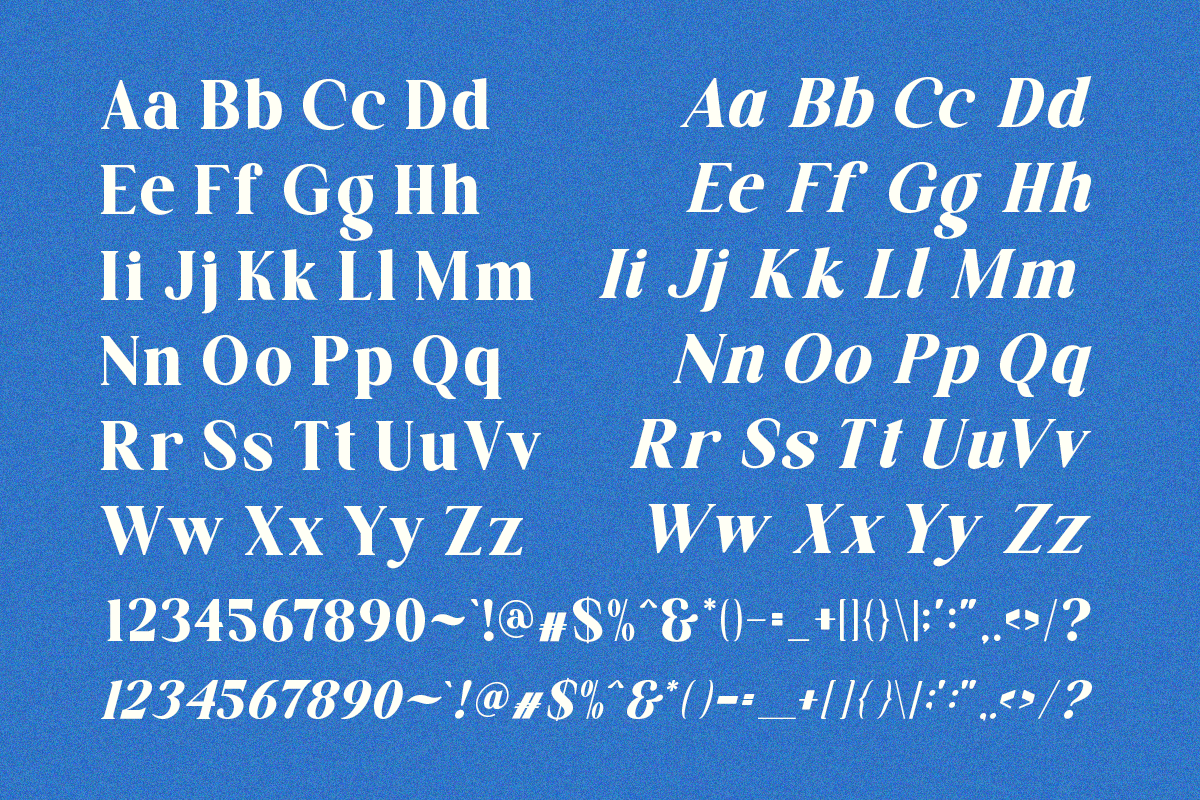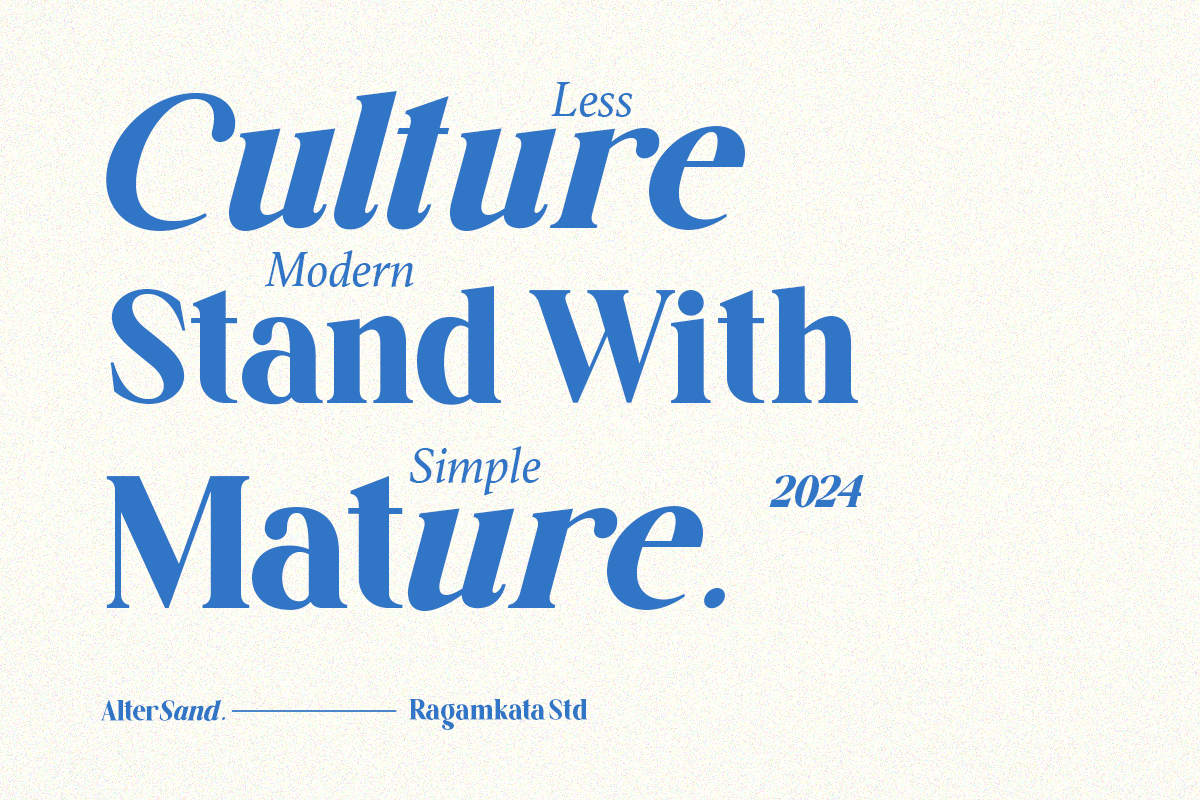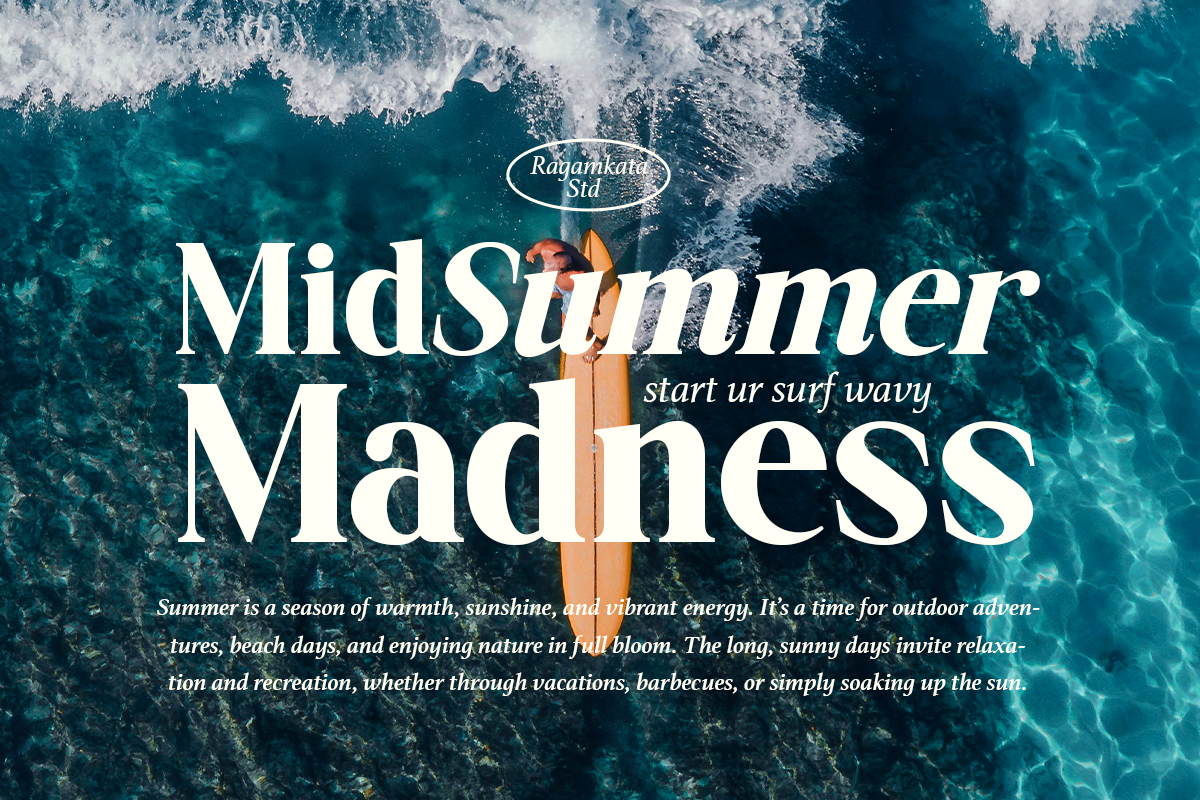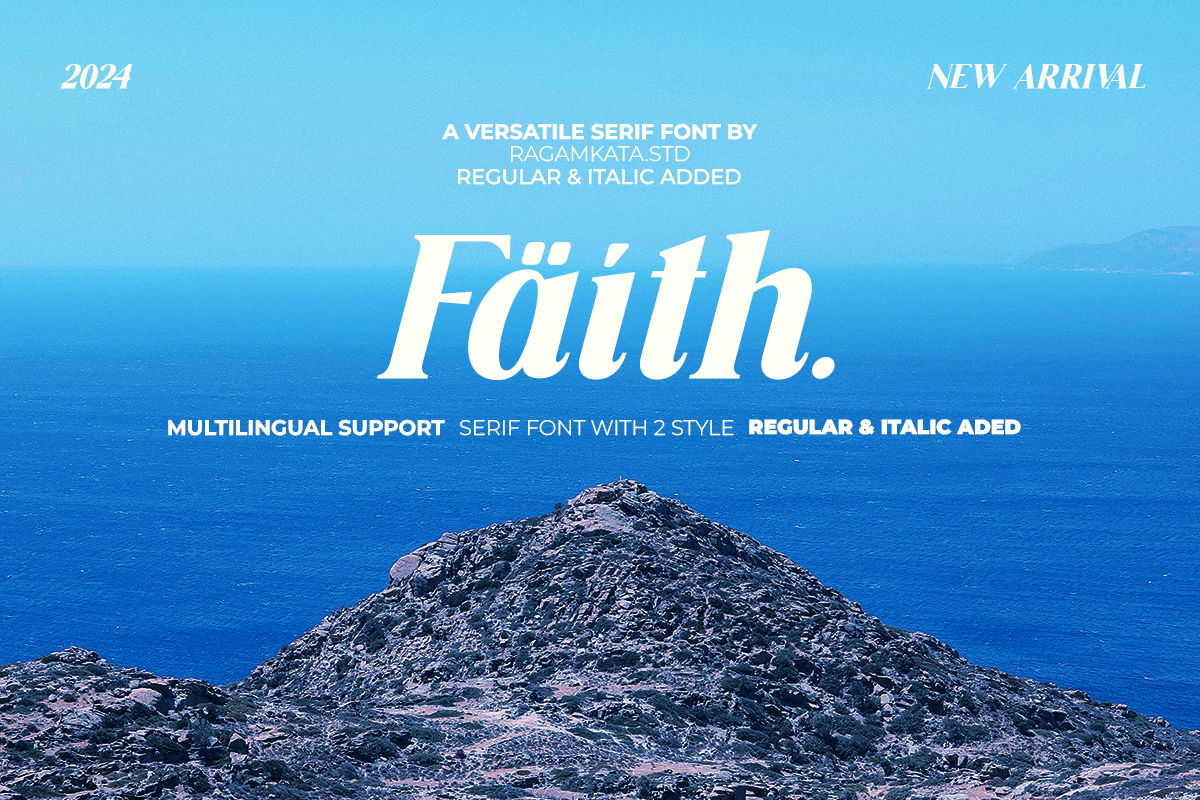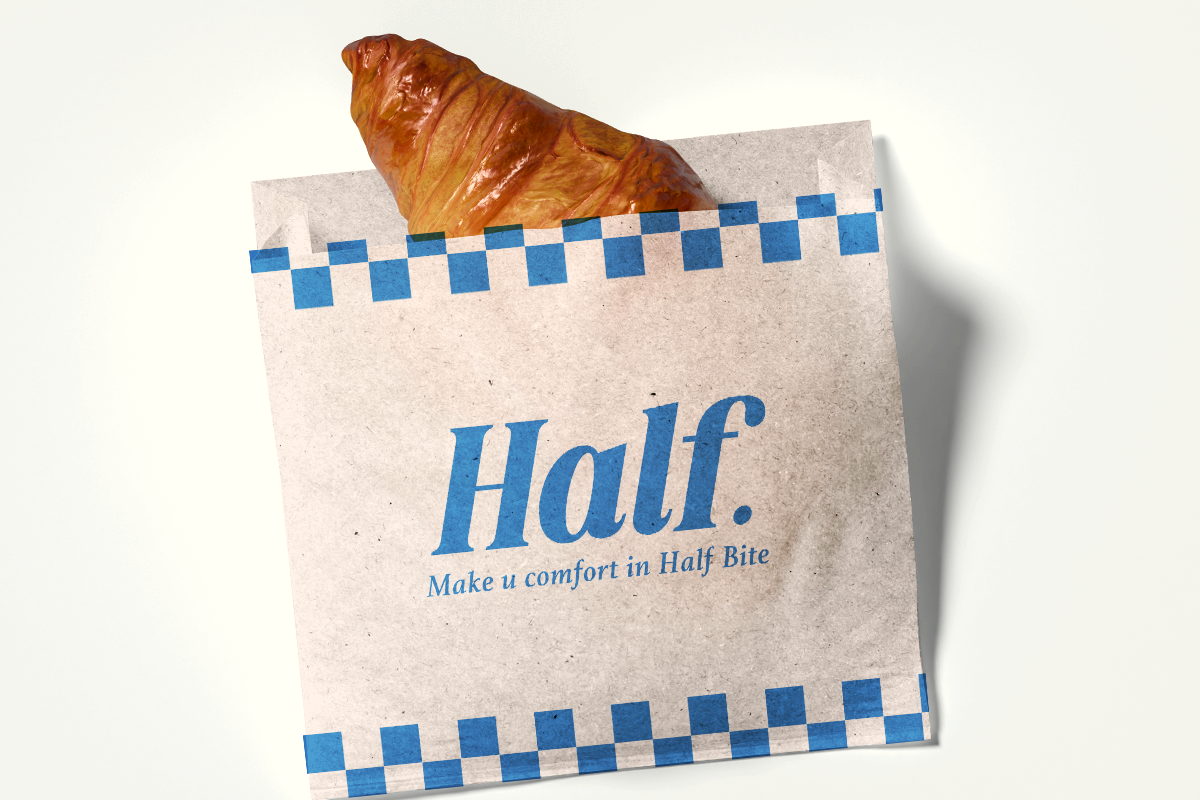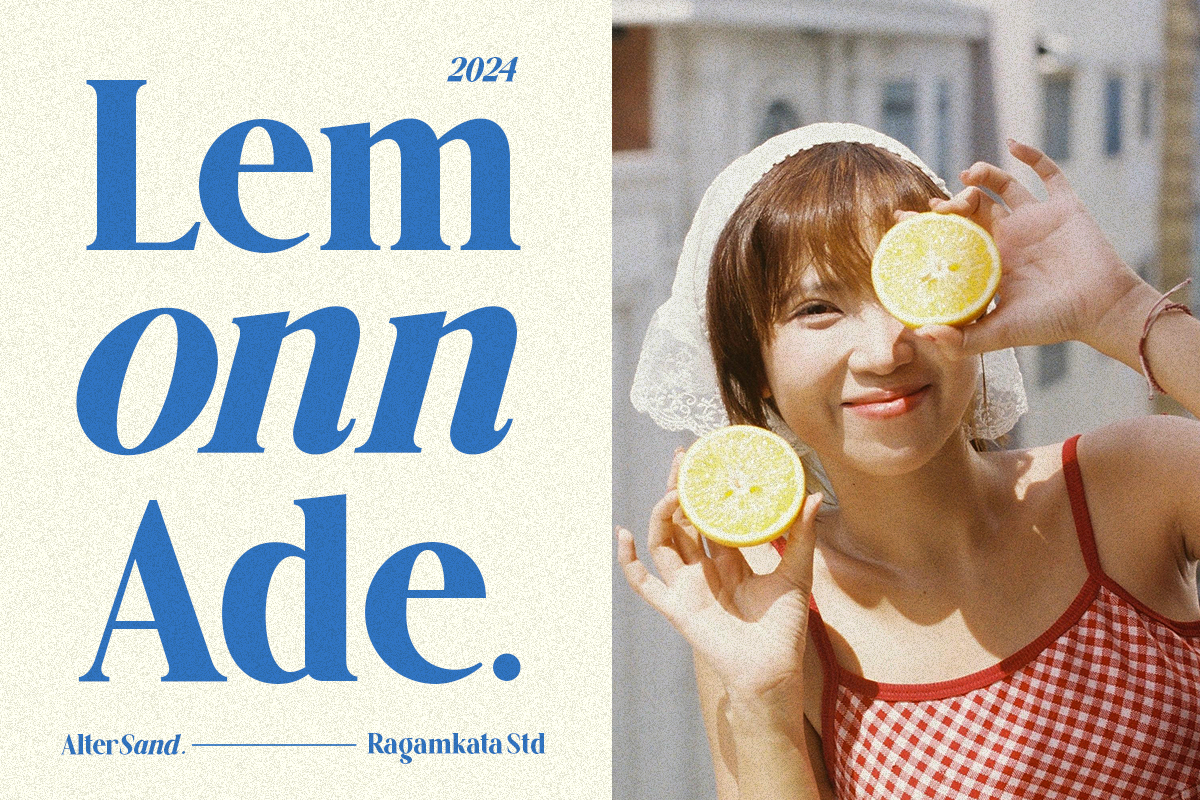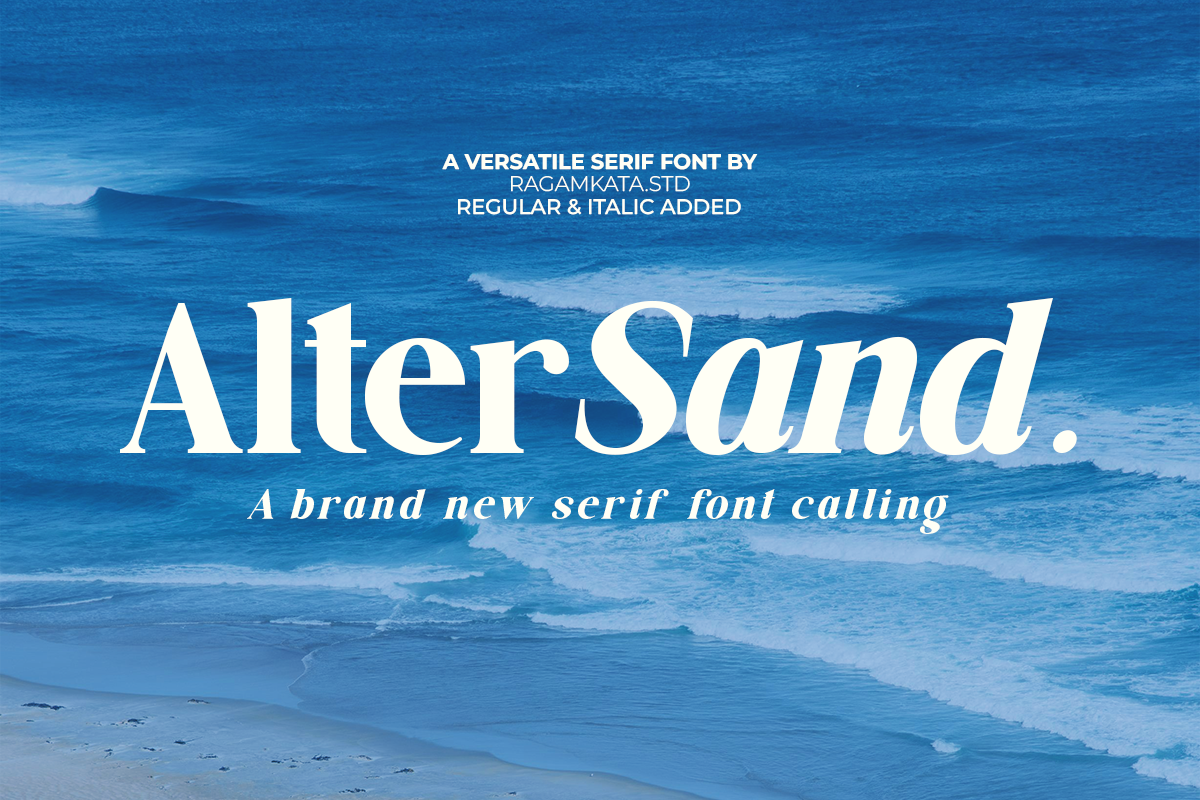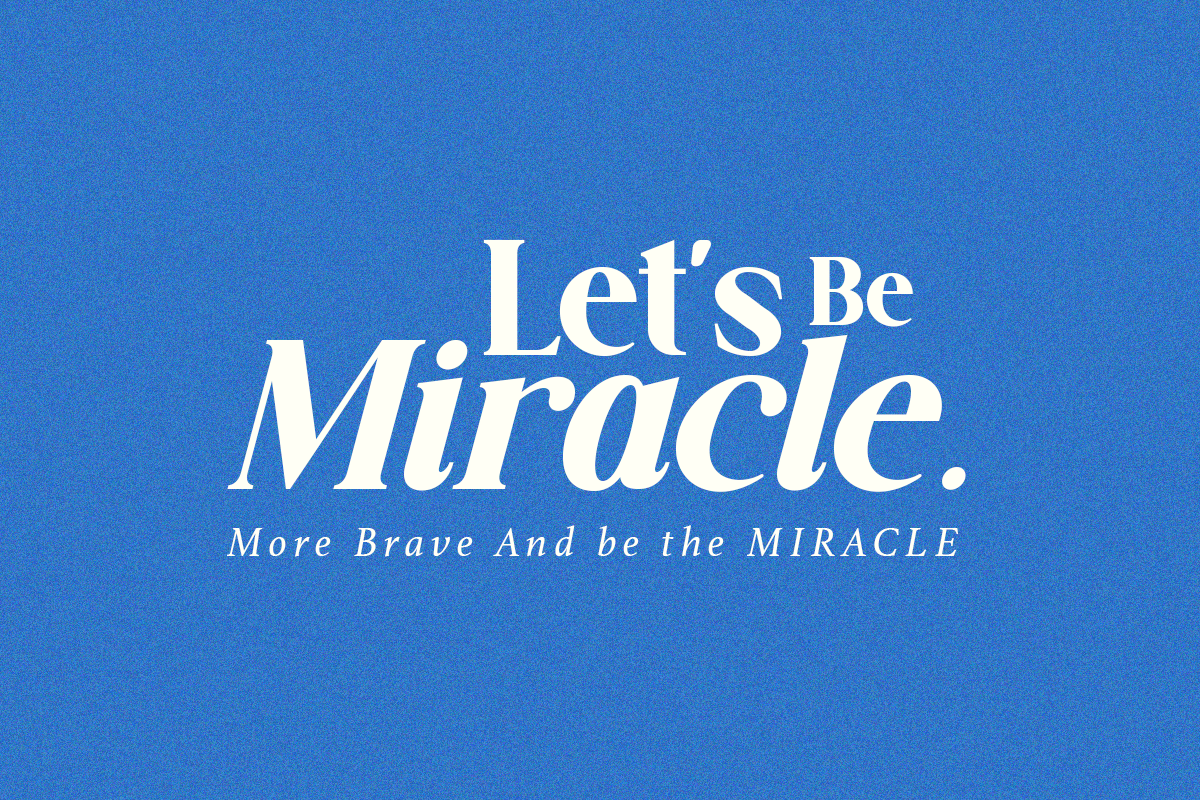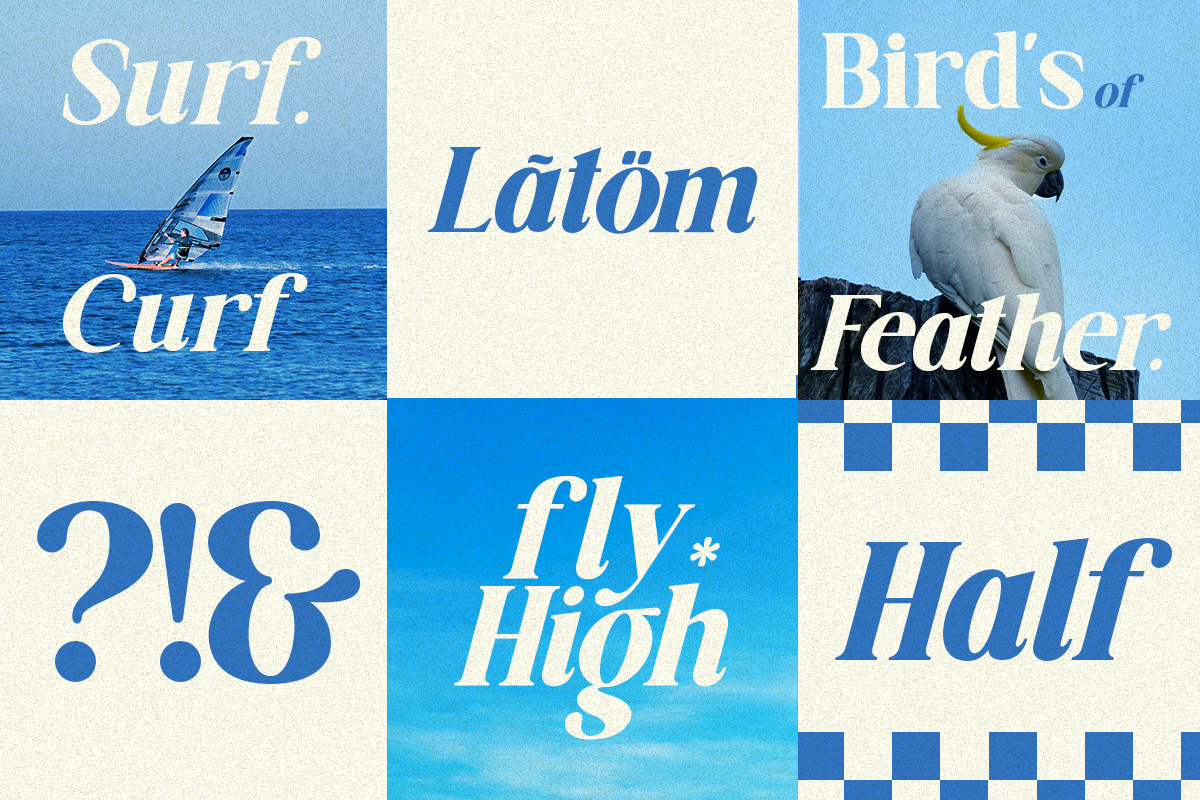
Alter Sand - Brand Serif Font
Alter Sand is a modern and versatile serif font that exudes elegance and visual clarity. Featuring both regular and italic styles, this font is ideal for a wide range of design projects, such as branding, editorial layouts, posters, and product packaging. Elegant & Clean: Perfect for luxury and high-end design, Versatile: The regular style delivers a professional look, while the italic style adds a dynamic touch. Conveys a premium and contemporary aesthetic.
- Multilingual Available